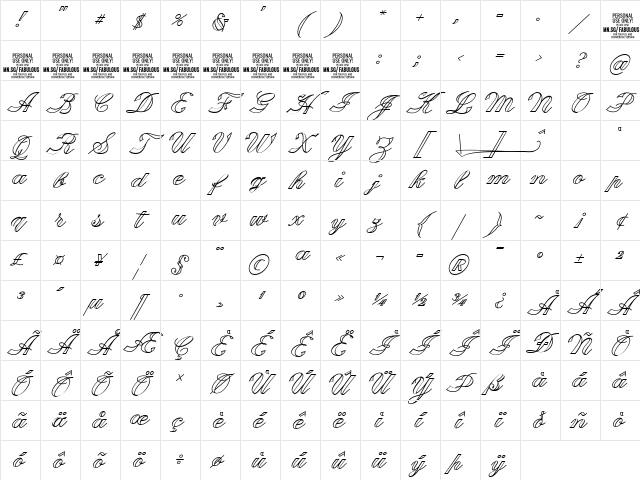
Complete Fabulous Outline PERSONAL USE Regular glyph index. Displaying only characters natively supported by Fabulous Outline PERSONAL USE Regular font.
Fabulous Outline PERSONAL USE is built around its visual character rather than neutral utility - its distinctive forms are designed to make an impression at display sizes.
Font Pairing: Pair with a clean neutral sans-serif for body copy to let Fabulous Outline PERSONAL USE's character lead without overwhelming the composition.
Pro Tip: Use Fabulous Outline PERSONAL USE exclusively at display sizes - it was designed to be seen, not read at length. Let a neutral companion handle body copy.